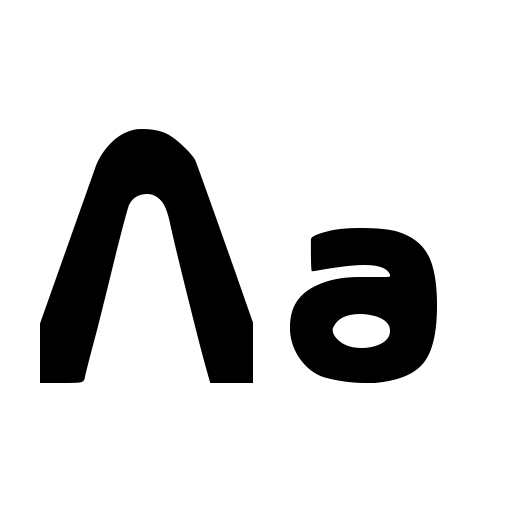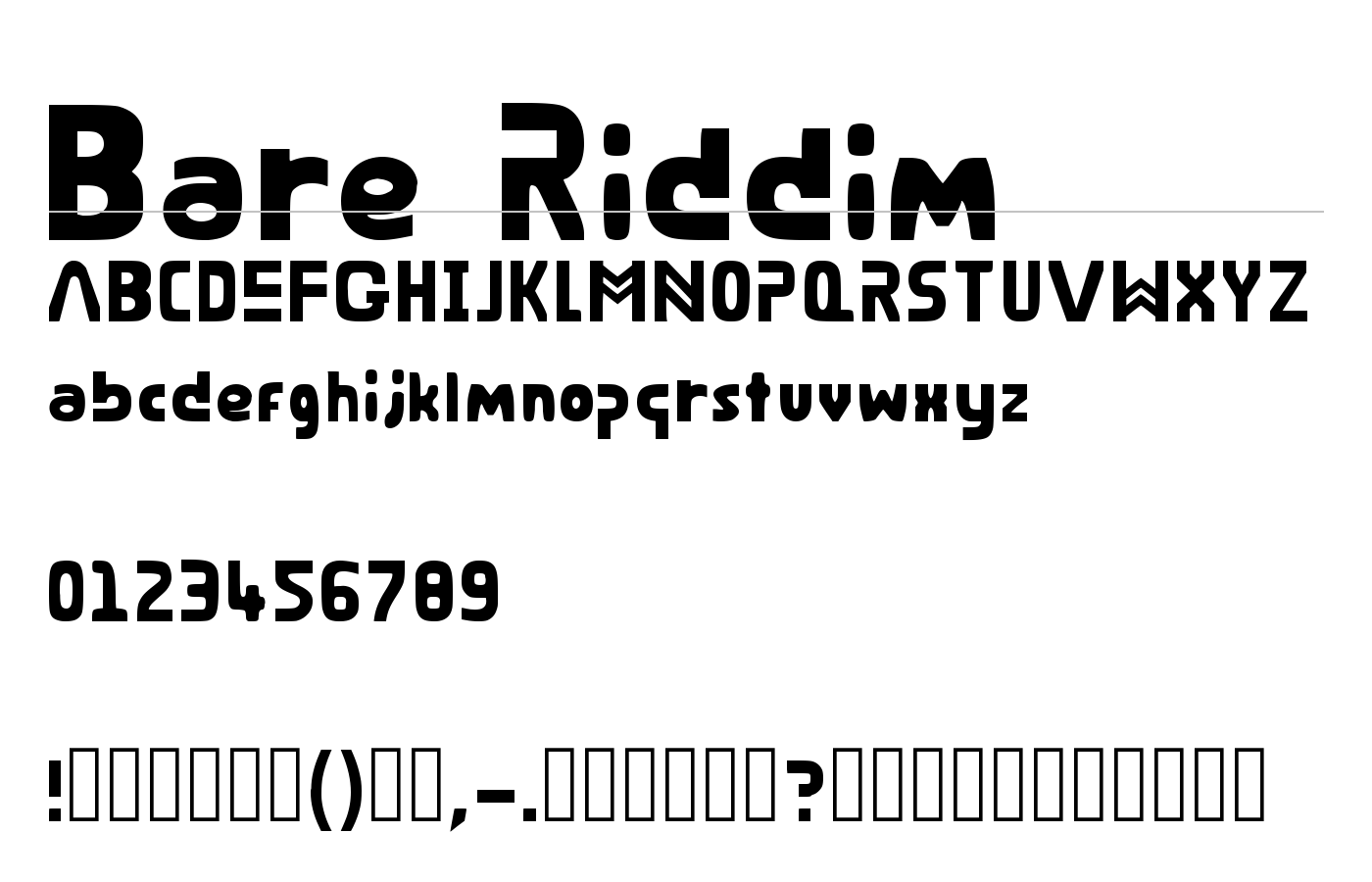
Bare Riddim is a bold, quirky sans serif font with a playful yet structured feel. Its tall, slightly condensed letterforms have unique, almost hand-drawn shapes that create an energetic and modern vibe, making it great for eye-catching headlines, logos, and creative branding that seeks a distinctive, youthful personality. This font works well in contexts where a bold, unconventional style is desired to capture attention and add character.
Bare Riddim Font
About Bare Riddim Font